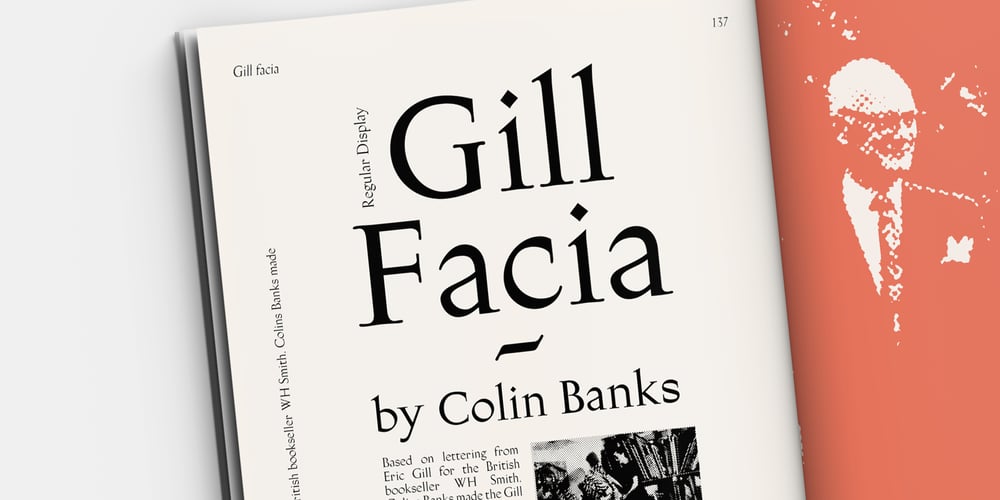
Gill Facia Font Family was designed by Colin Banks, Steve Matteson and published by Monotype. Gill Facia contains 5 styles and family package options. Based on lettering from Eric Gill for the British bookseller WH Smith, Colins Banks made the Gill Facia family for Monotype in 1996. This lettering from Eric Gill was one of the first alphabets that was used for corporate branding. Gill Facia is an elegant signage face for advertisements and for displays.